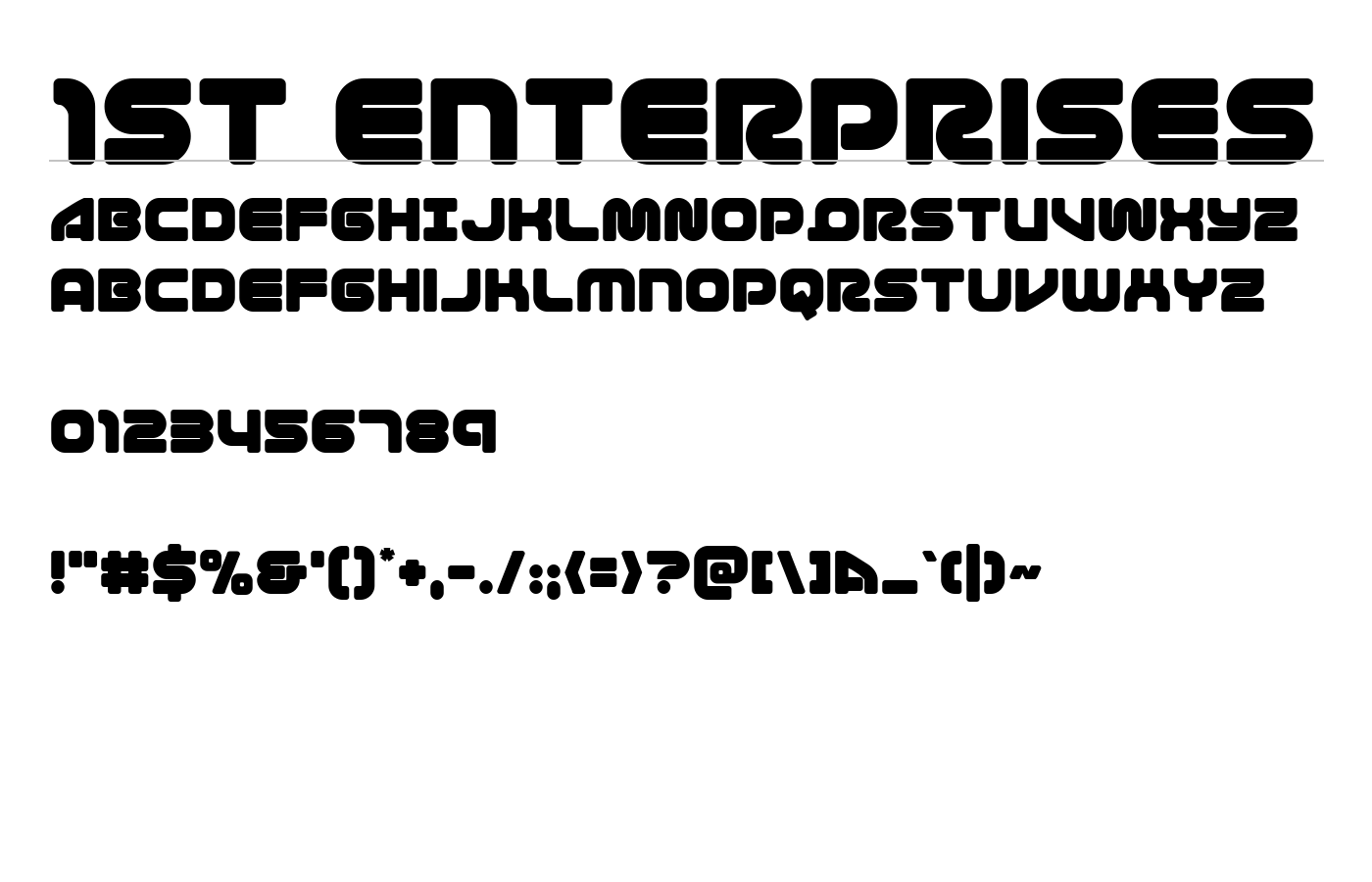
1st Enterprises Font is a bold, futuristic sans serif typeface with a strong, geometric structure and rounded corners that give it a modern and approachable feel. Its heavy weight and tightly spaced letterforms make it ideal for impactful headlines, logos, and branding where a tech-savvy, dynamic impression is desired. This font works well in digital and print designs that require a confident, contemporary style with a touch of uniqueness.
1st Enterprises Font
About 1st Enterprises Font